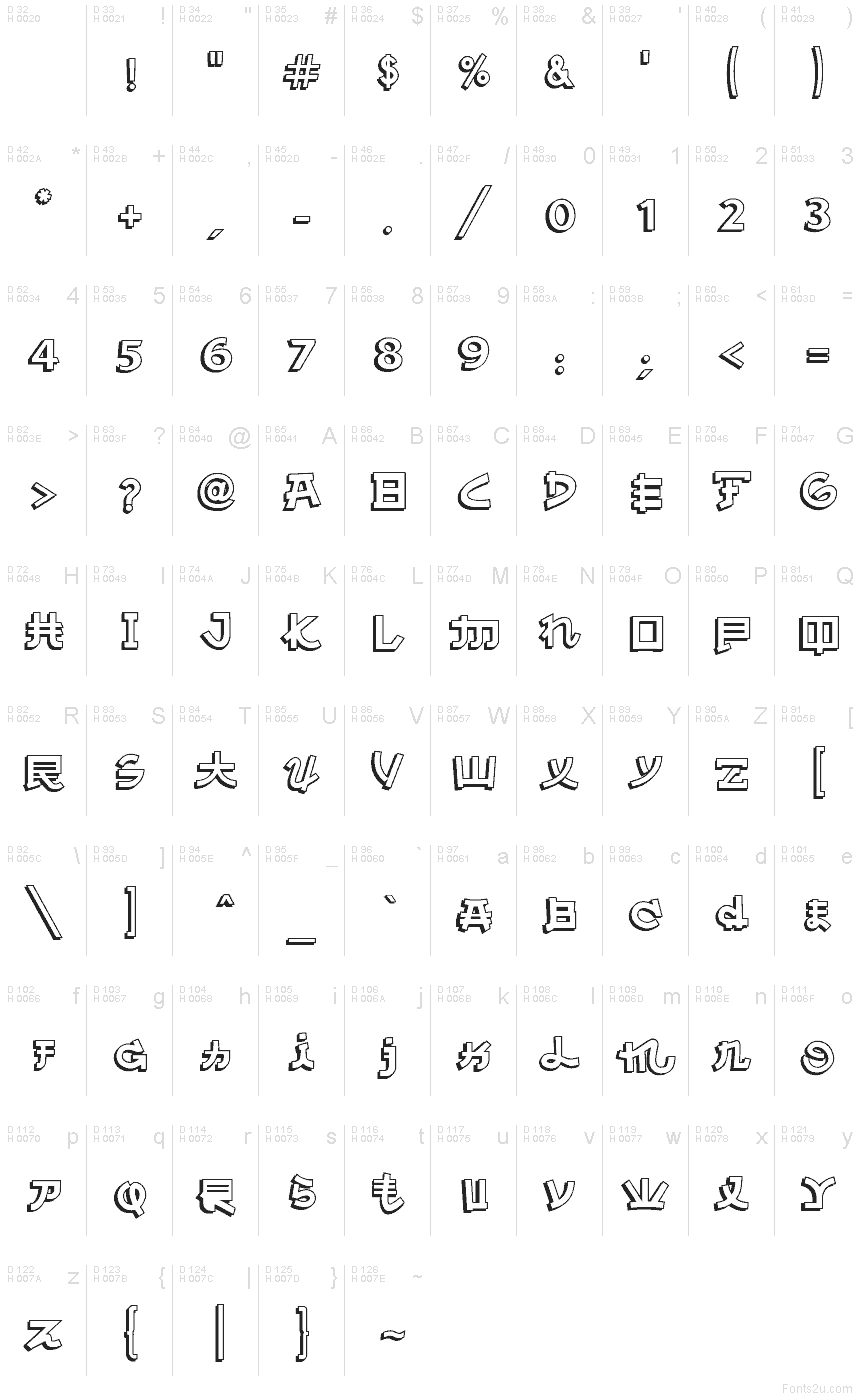
Almost Japanese Comic Regular
Almost Japanese Comic font by Galdino Otten Fonts is a free decorative display font with a faux‑Japanese, 3D comic twist. Its loose, looping strokes and curled ends sway with a hand-drawn bounce, while the etched inner shading adds a puffed, sticker-like dimension. Letters interlock with a lively rhythm, giving headlines a playful wobble without losing legibility.
Using Almost Japanese Comic, your titles pop on ramen pop-up posters, manga zines, arcade flyers, cosplay event banners, YouTube thumbnails, and snack or sticker packaging. This free font shines at larger sizes—let it breathe and do the talking. For balance, pair it with a plain, modern sans-serif for captions or menus.